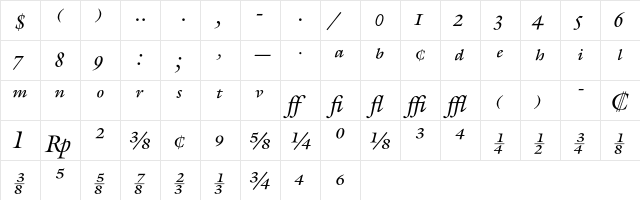
GalliardExpCC Regular Font Preview
GalliardExpCC Regular
Design Context for GalliardExpCC Typeface
GalliardExpCC takes a measured approach to typography — its balanced proportions and neutral character make it a reliable workhorse for both digital and print work.